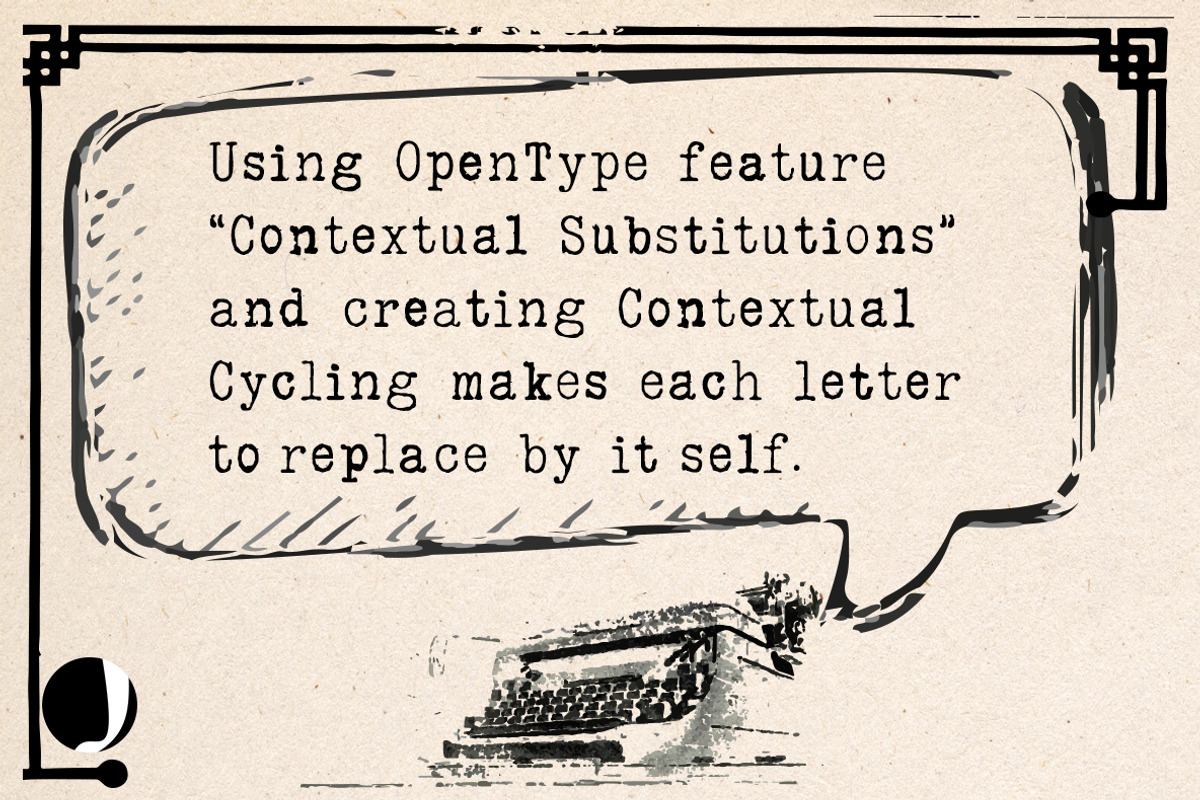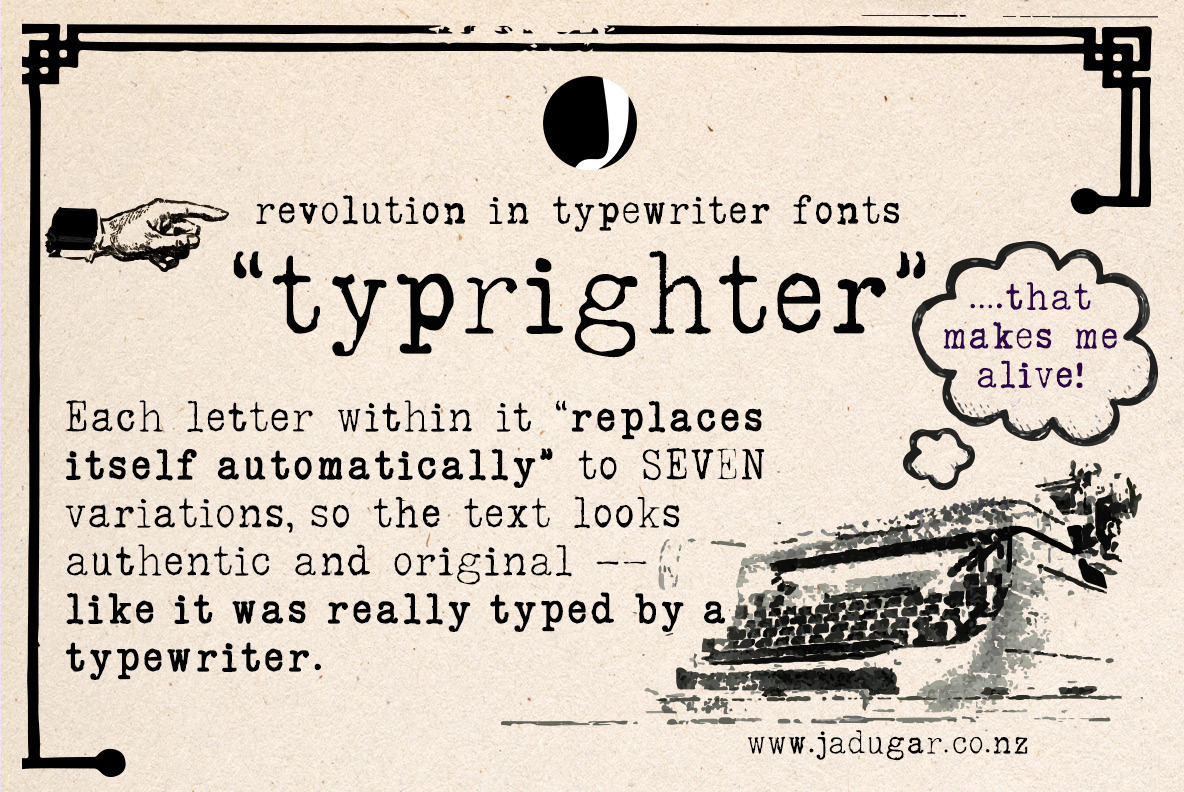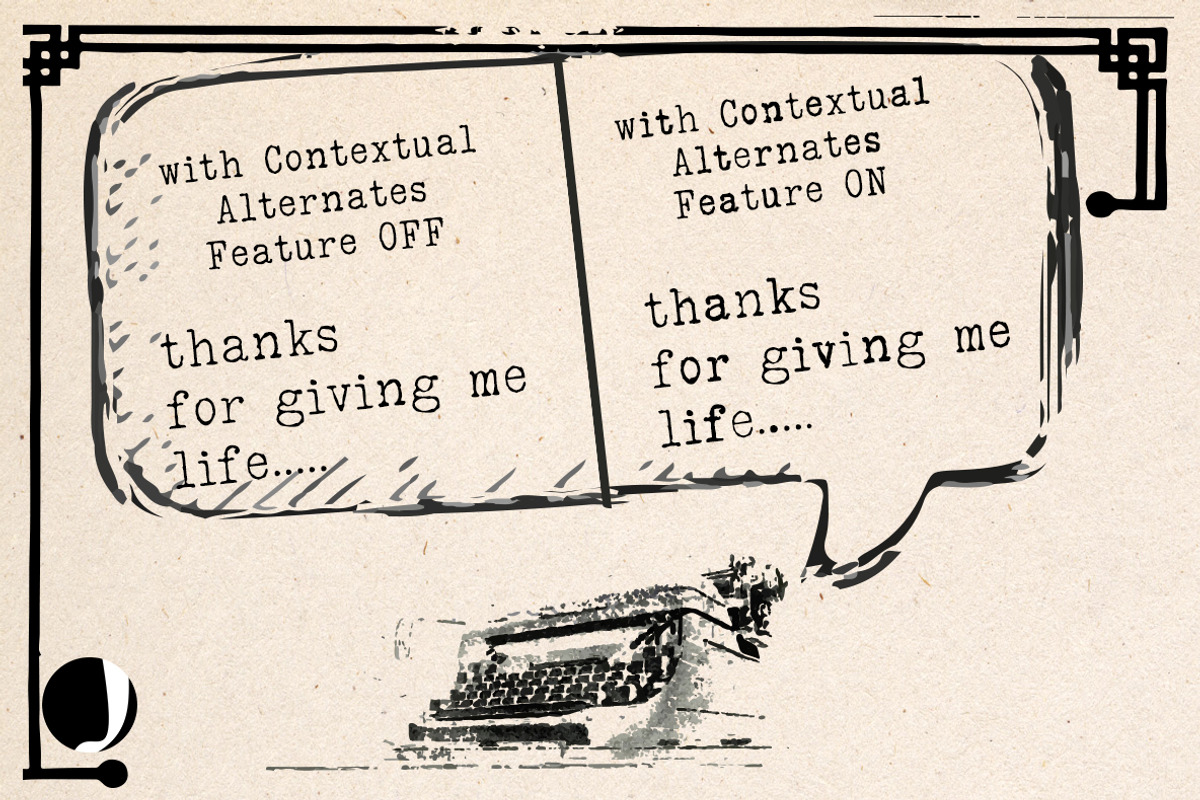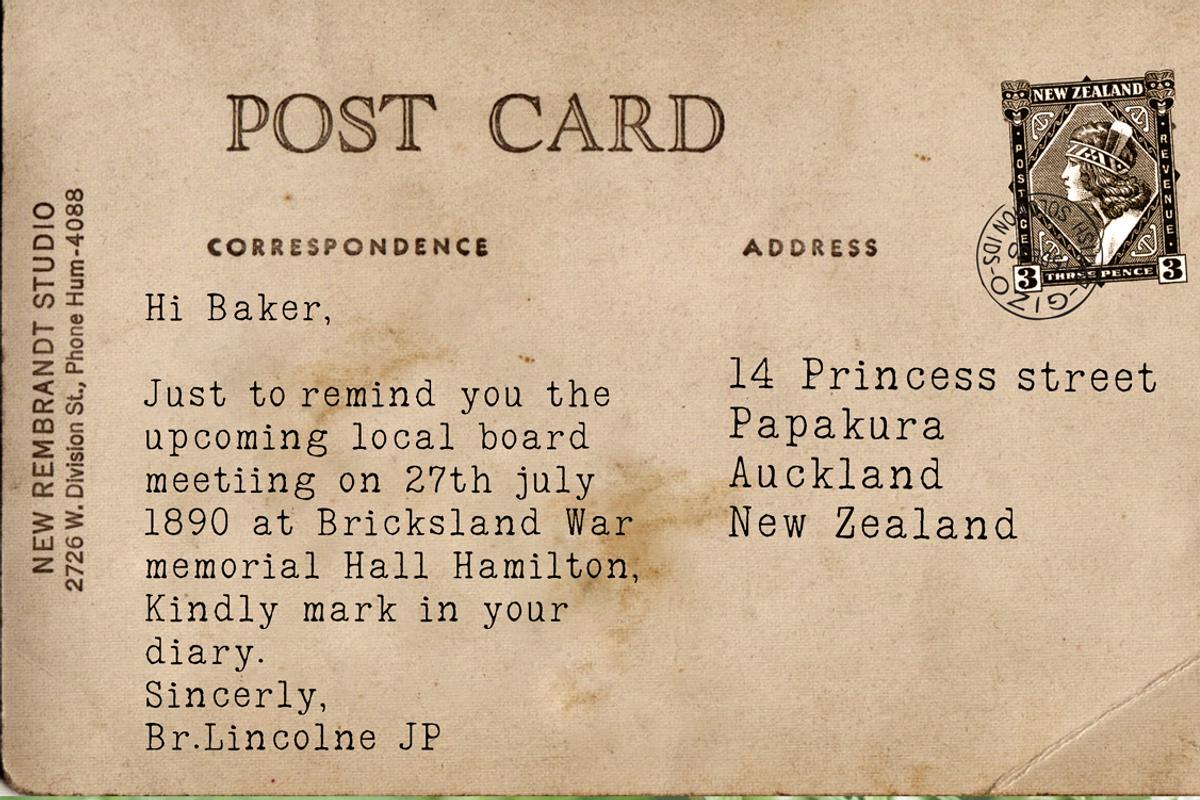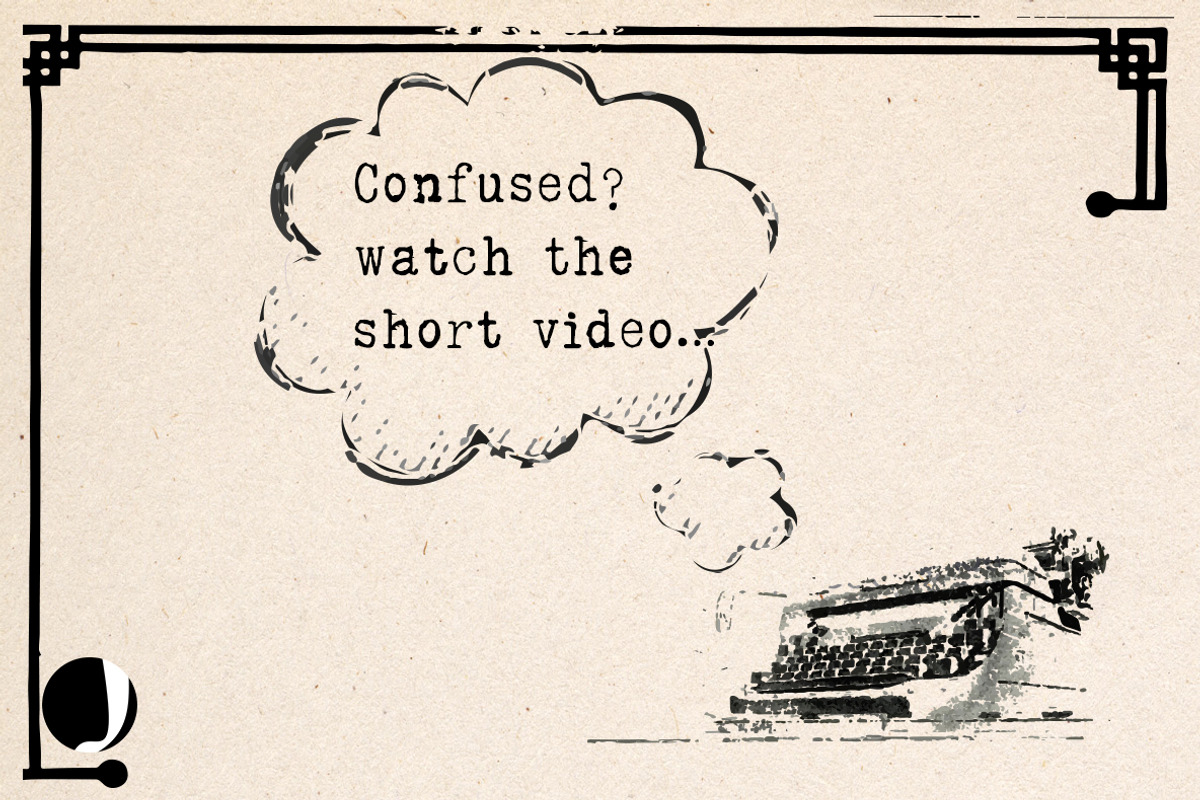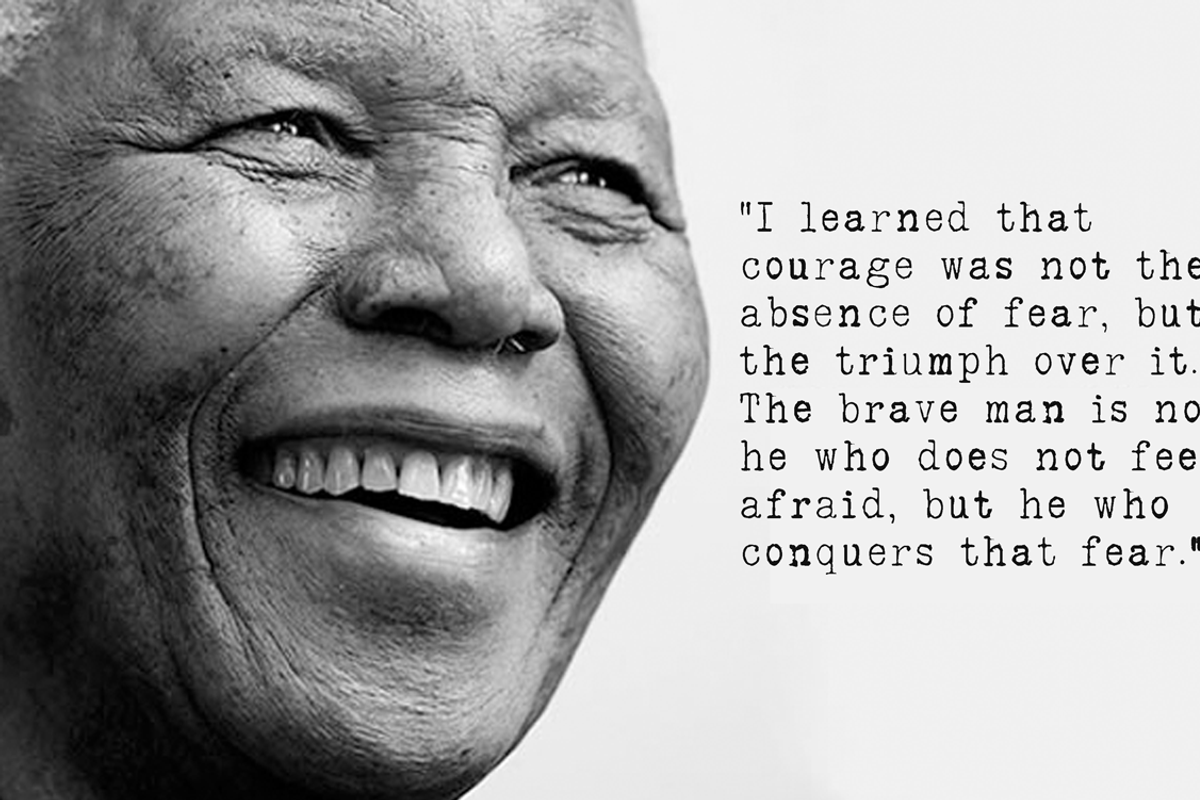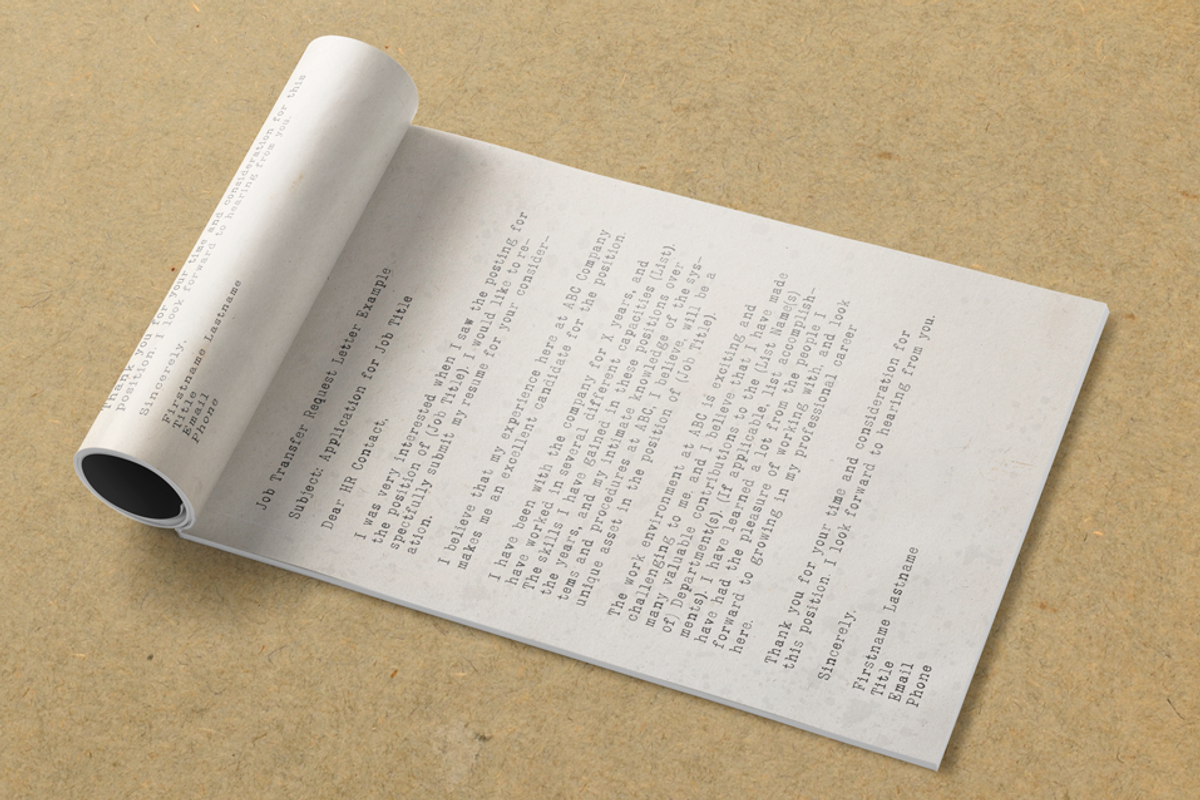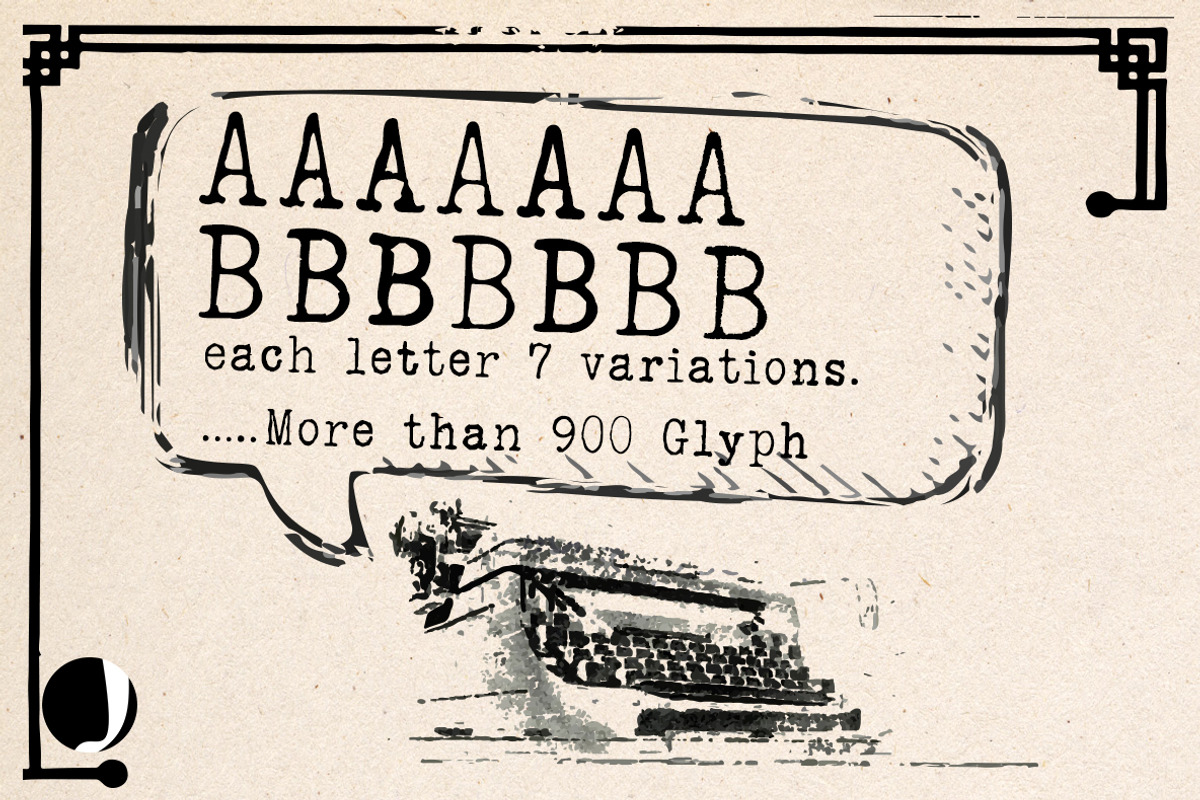
"typrighter"-Amazing Typewriter Font
Here is a revolution in typewriter fonts.......typrighter.......yes! The package have two versions.......typrighter V1 and typrighter V2.....Applied Contextual Substitutions feature in fontlab with 6 different alternative of each letter (standard English alphabets). No more repeating same contours of letters which a typical typewriter font does......a letter replaces itself automatically to 6 variations to give you real typewriter text flowing out of your computer keyboard......
If you don't want to have these feature on, you will get default set of letters......clean and tidy.....
BONUS , everyone like something extra.....although lot of extras included in this package....yet we thought giving BOLD style as a separate font would be a good bonus with this package.....wow.....